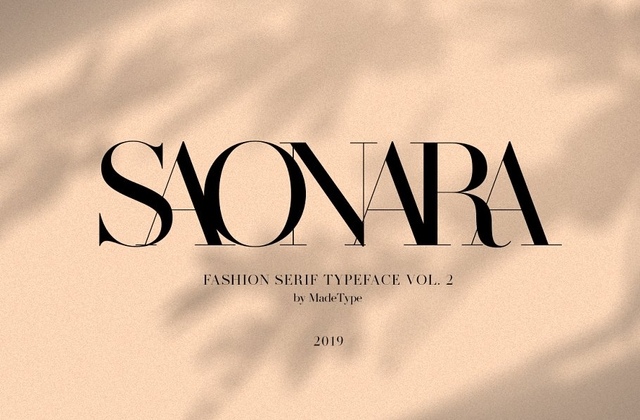
MADE SAONARA Font
MADE SAONARA Font is perfect for farewell event promotions, graduation ceremony materials, travel company branding, nostalgic restaurant identities, memory preservation services, and emotional storytelling platforms. This expressive typeface excels in retirement celebration designs, moving company communications, farewell party invitations, and any application where bittersweet emotions and meaningful departures create powerful connections with life transitions.
What makes MADE SAONARA Font so exciting is its remarkable ability to capture the complex emotions of farewell through letterforms that balance melancholy with hope for new beginnings. The font features flowing curves, transitional proportions, and emotive character shapes that embody the gentle sadness and optimistic excitement of saying goodbye. Its emotional authenticity makes it perfect for brands that help people navigate life's meaningful transitions.
MADE SAONARA Font comes in a transitional family including Light, Regular, Medium, Bold, and Farewell weights. Each style features complete uppercase and lowercase character sets, emotional symbols, transitional numerals, and heartfelt punctuation marks. The font family also includes nostalgic alternates, farewell ligatures, and memory variations that allow designers to create truly moving communications with emotional appeal and professional sensitivity.
This touching typeface transforms communications into heartfelt expressions of transition and new beginnings. MADE SAONARA Font Free Download provides event planners and transition-focused businesses with essential typography that honors the significance of farewells while celebrating future possibilities. Whether you're developing brands for relocation services, creating materials for graduation ceremonies, or designing farewell event promotions, this font delivers authentic emotional resonance with hopeful elegance.
The font's transitional character makes it particularly effective for event planners, travel companies, moving services, and memory preservation businesses. Its gentle readability ensures that MADE SAONARA Font communicates clearly while maintaining its distinctive emotional personality. The font's ability to evoke both nostalgia and optimism makes it an invaluable bridge for any project seeking to honor meaningful departures and connect with audiences through the universal experience of saying goodbye, embracing change, and finding beauty in life's inevitable transitions.